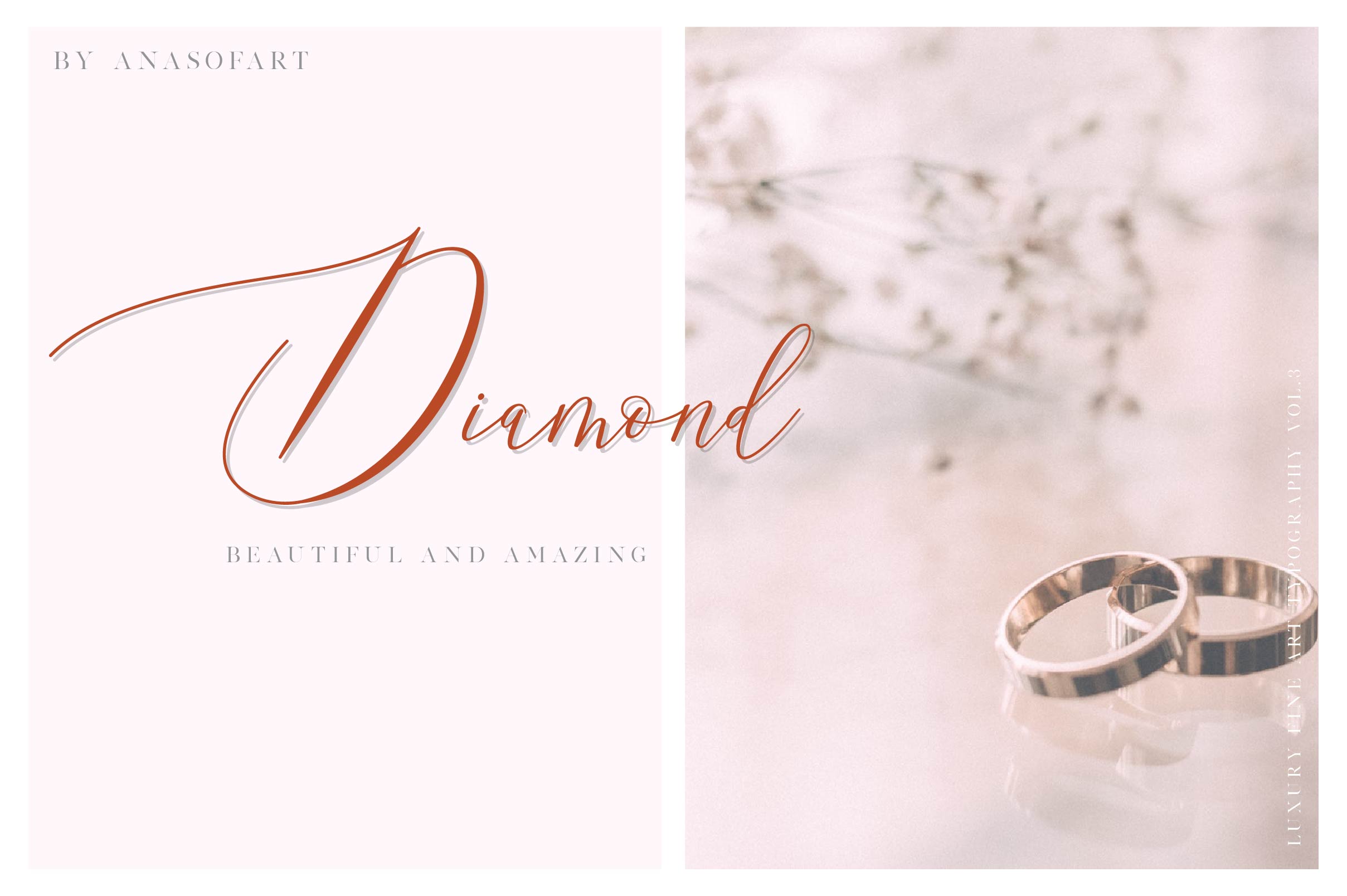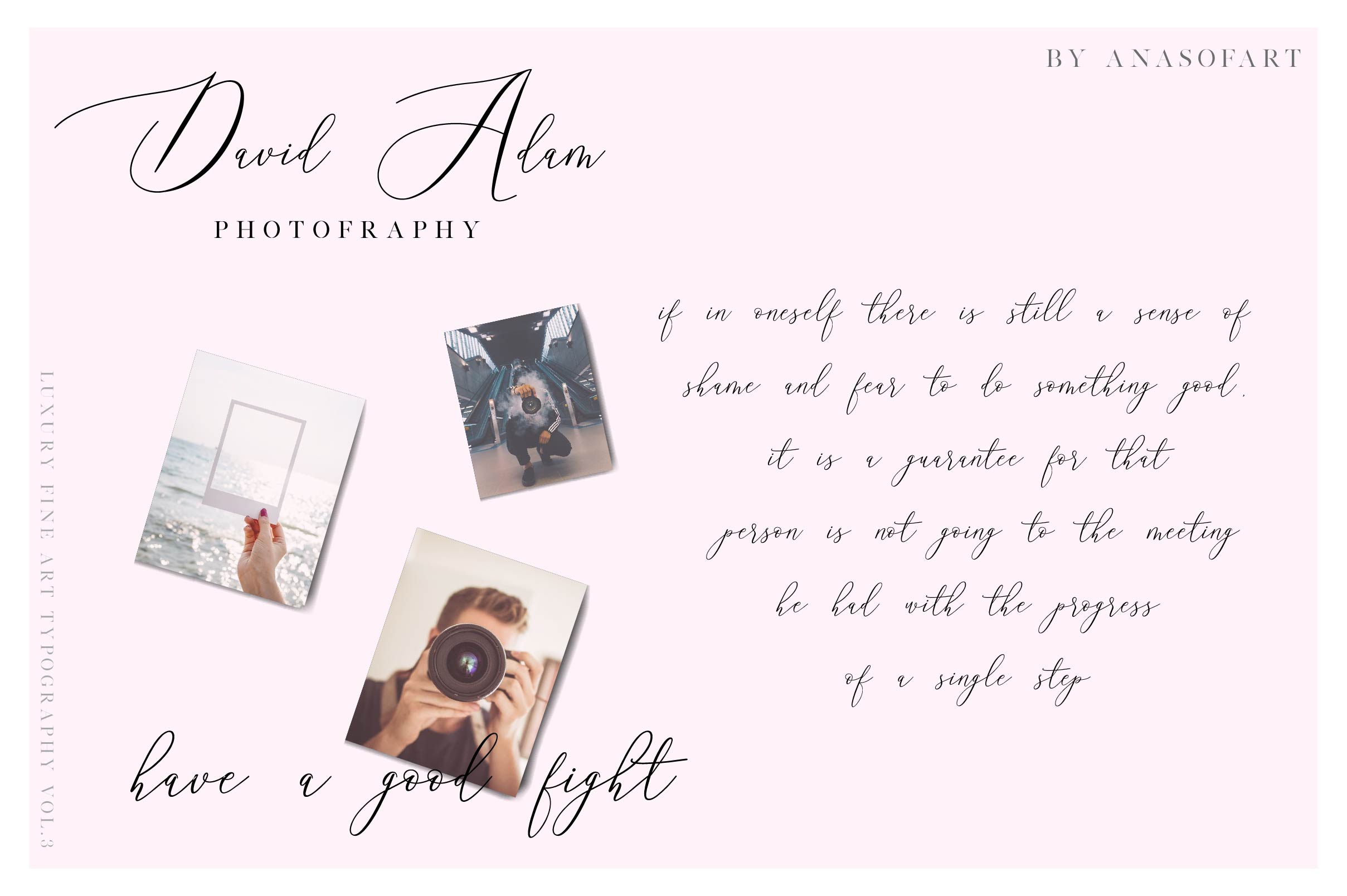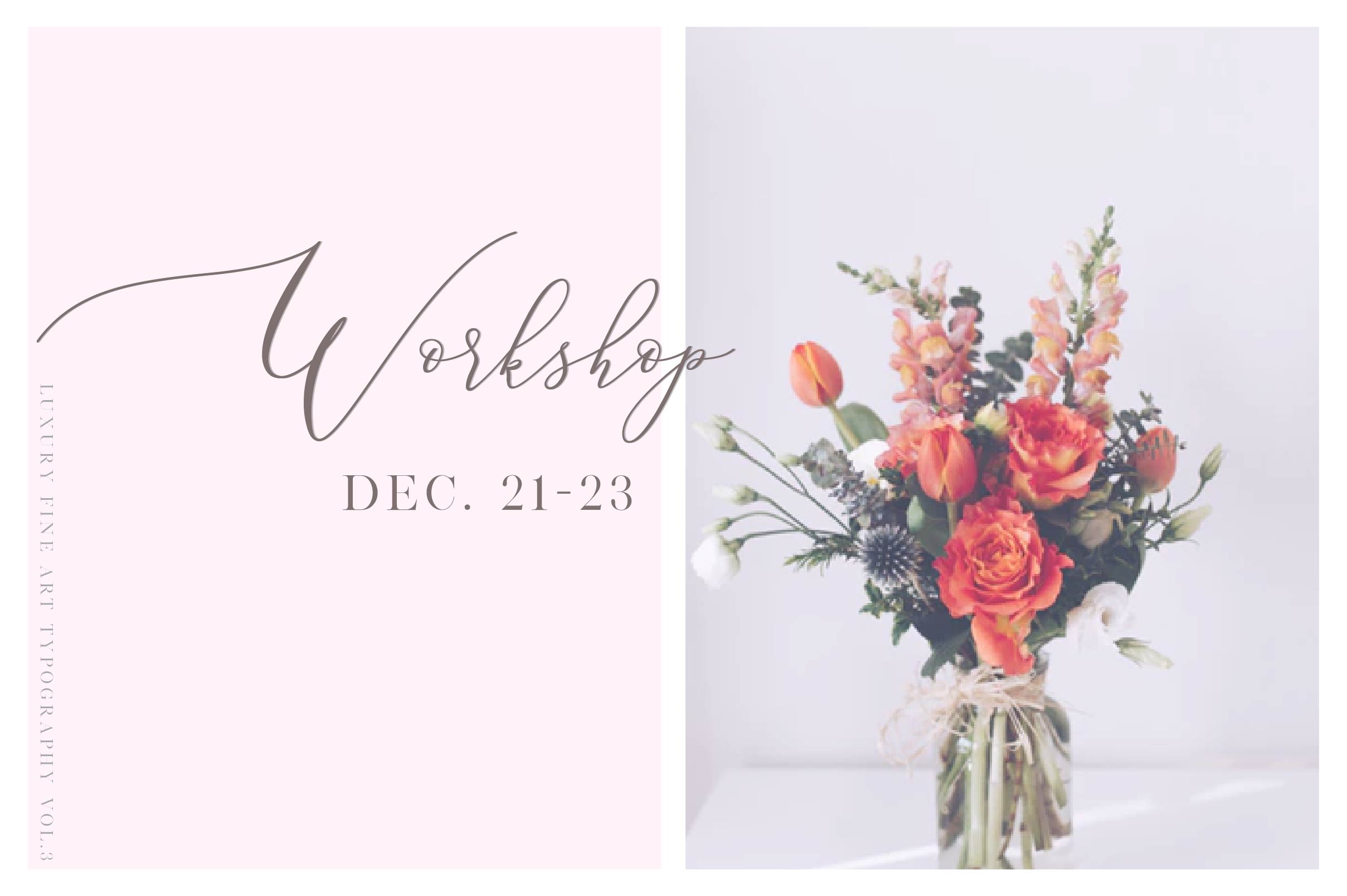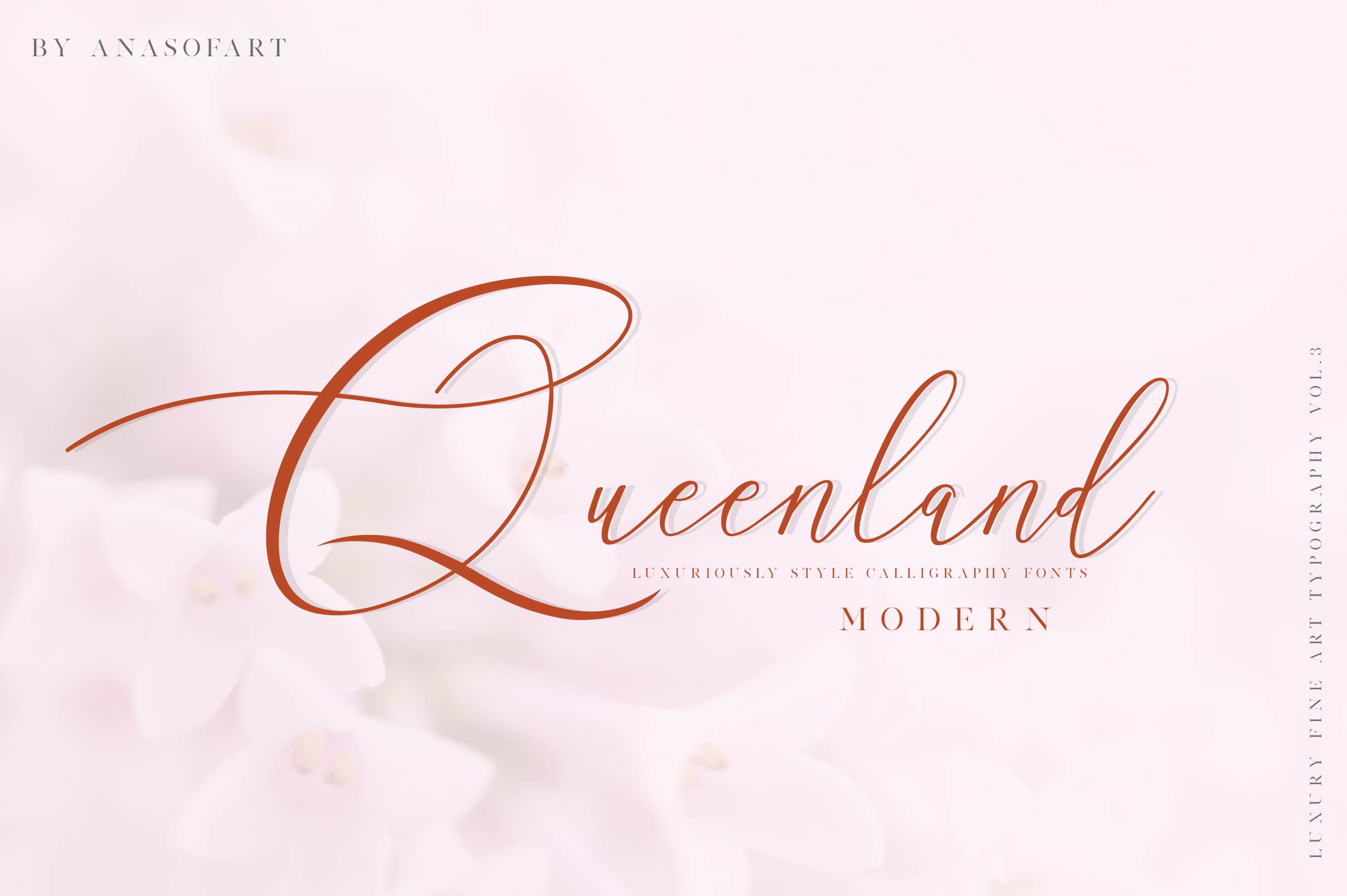
Queenland Script Font
A modern handscript typeface. Give your designs an authentic handcrafted feel. Introducing Queenland Font. Queenland – a stylish handwritten with signature style. This beautiful script font offers your personal touch to your latest art project with elegant, classy and modern look. Queenland offers gorgeous typographic will perfect for many different project such as logos & branding, invitation, stationery, wedding designs, social media posts, advertisements, product packaging, product designs, label, photography, watermark, special events or anything that need handwriting taste.